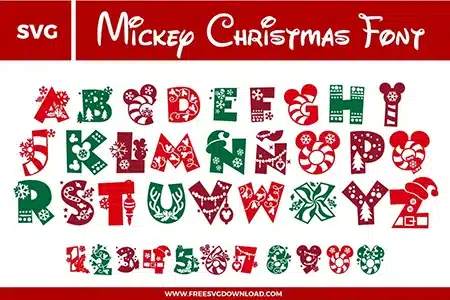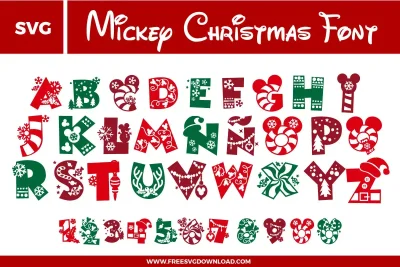
Mickey Christmas Font Free SVG File
This Mickey Christmas Font free svg files bundle features a decorative alphabet and numbers set with festive Disney-inspired themes. The letters are styled with holiday elements including Mickey Mouse ears, Santa hats, snowflakes, candy cane stripes, and Christmas ornaments in red, green, and white. Each character showcases unique patterns like polka dots and winter trees, perfect for high-quality holiday digital crafting.
• Mickey Christmas Font SVG: Decorative Christmas alphabet and number font set in red, green, and burgundy block letters filled with snowflakes, candy canes, ornaments, bows, peppermint shapes, Mickey ear motifs, and other holiday pattern details arranged across multiple rows.